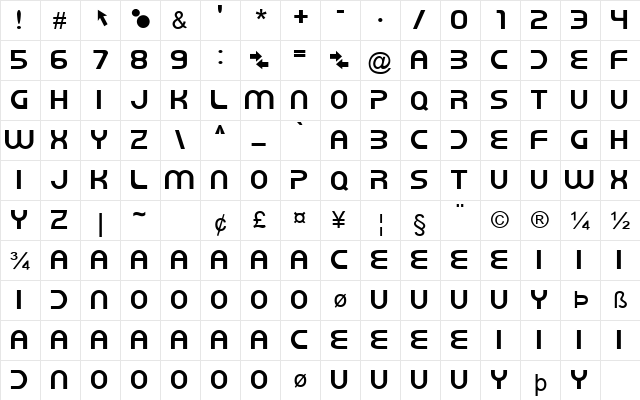
New World Vibes Regular
Design Context for New World Vibes Typeface
New World Vibes offers clean, dependable letterforms without strong stylistic allegiance, making it a practical choice for designers who need flexibility.
Pro Tip: Pair New World Vibes with a font of contrasting weight or personality to build a more expressive typographic hierarchy.